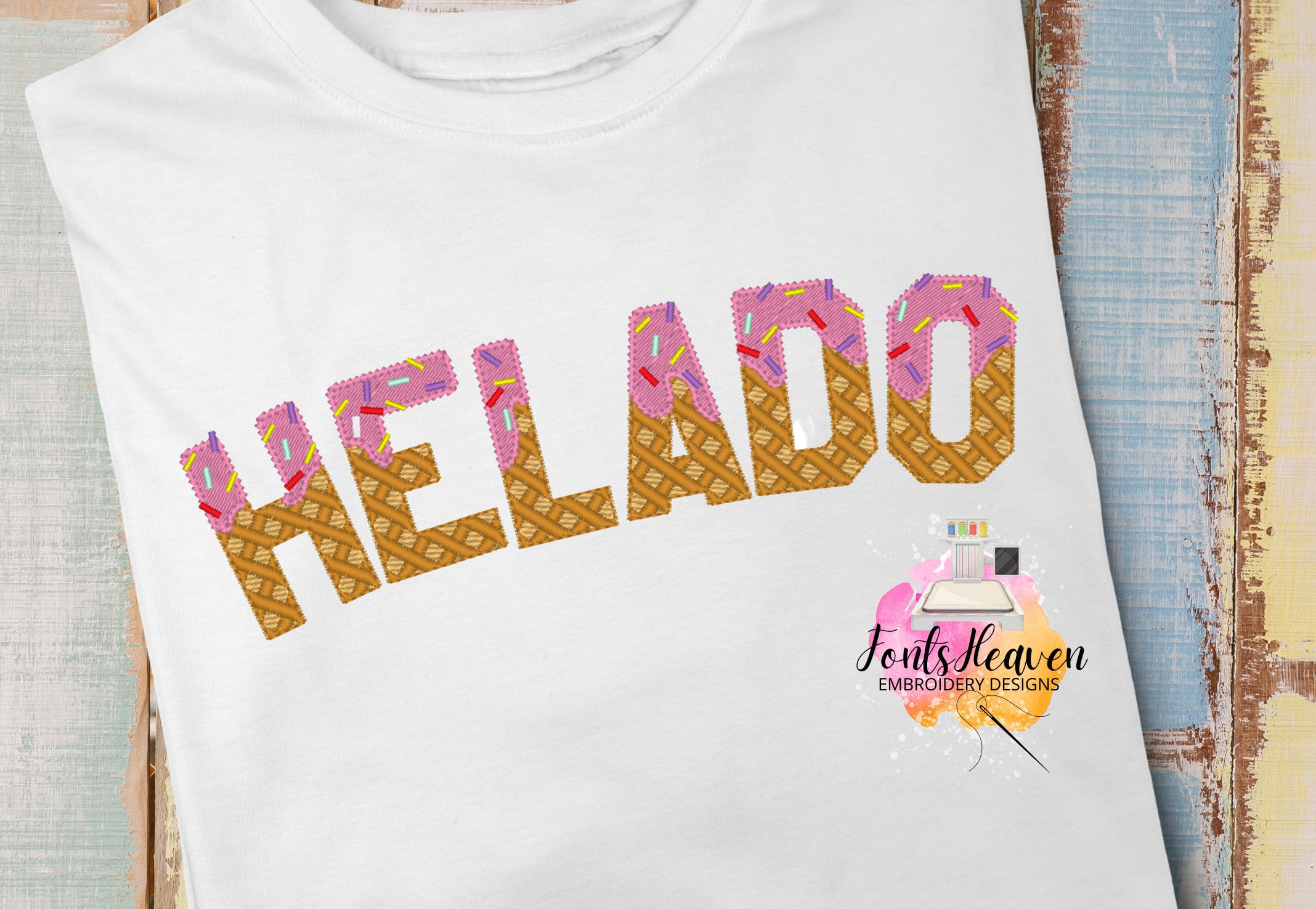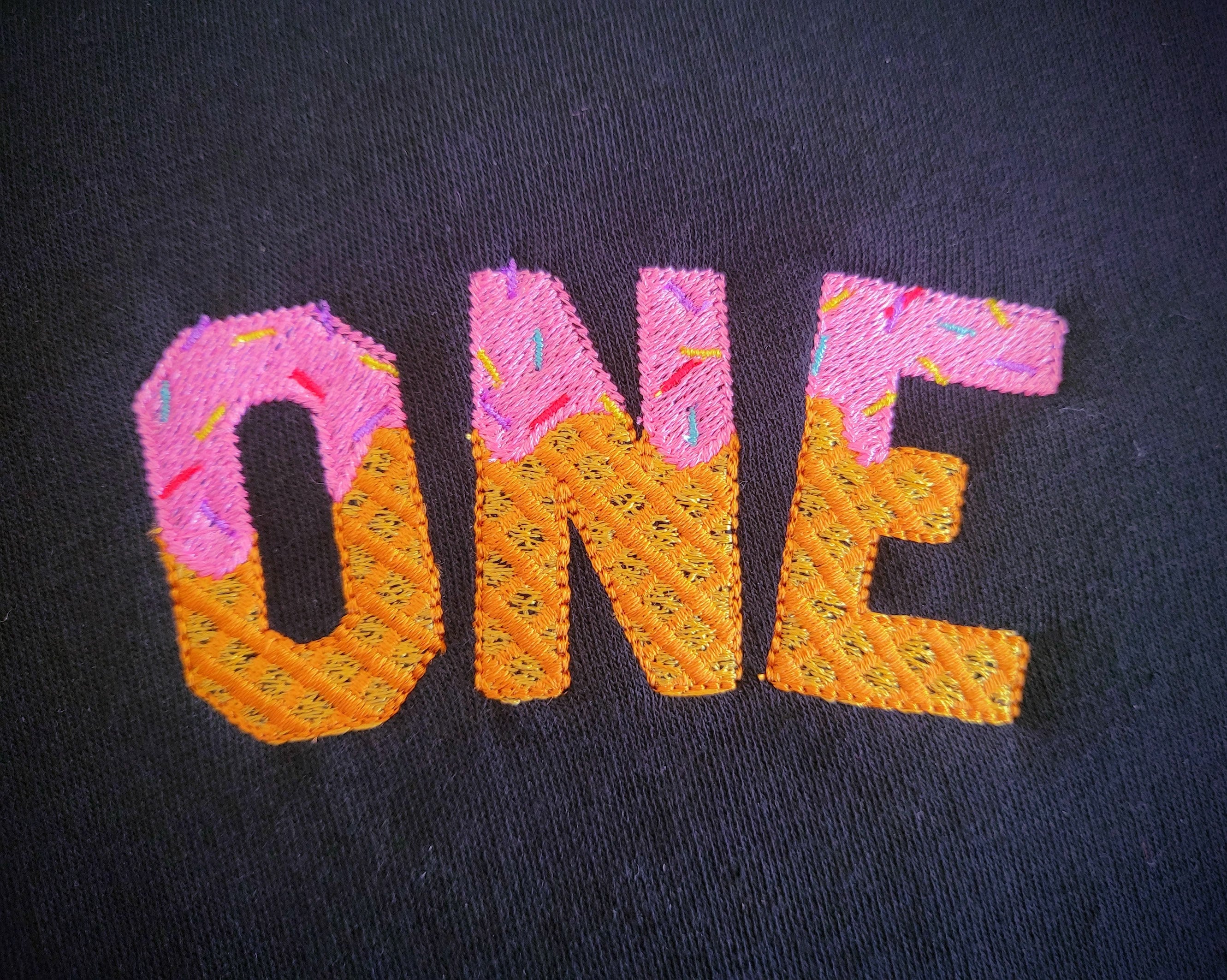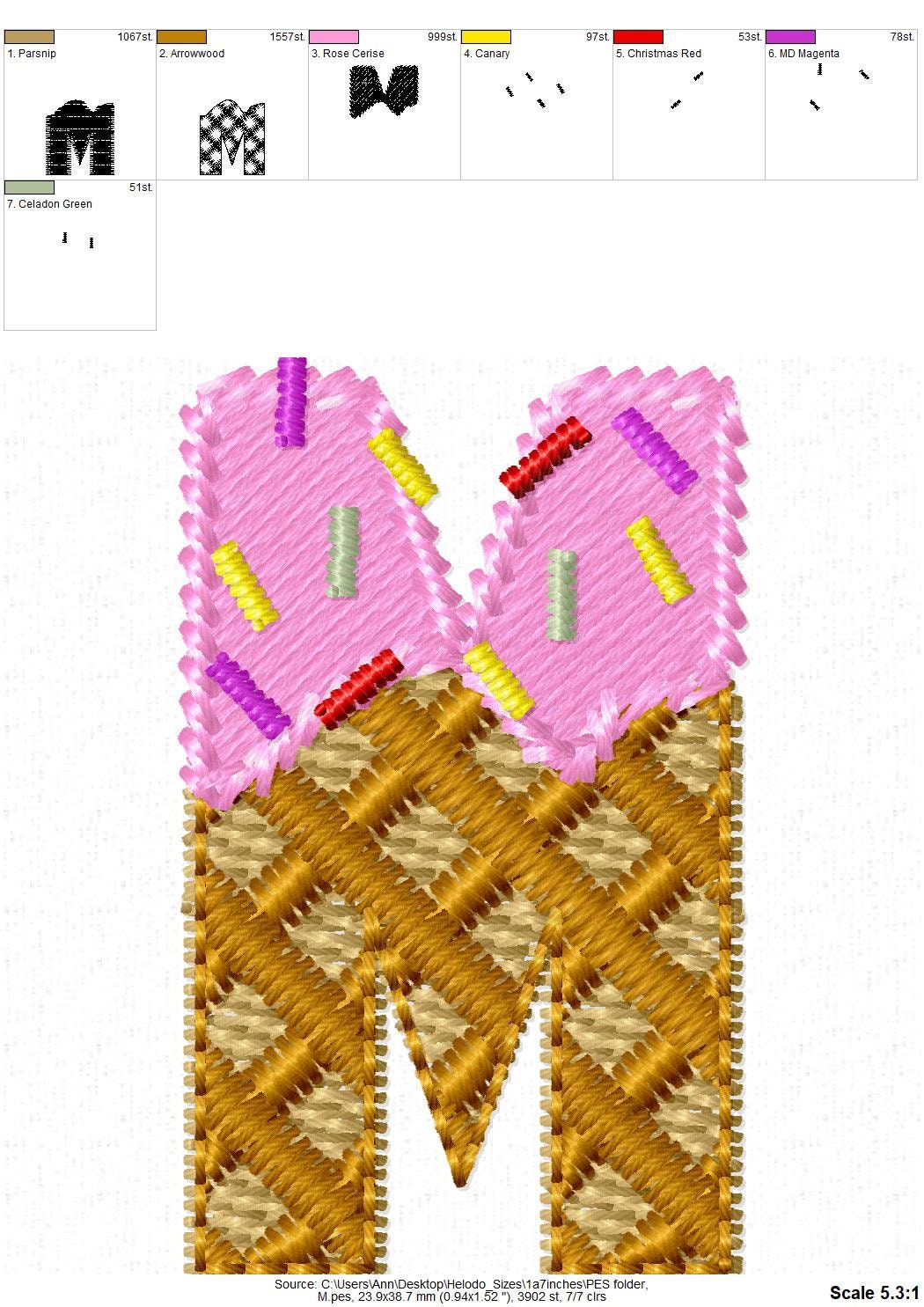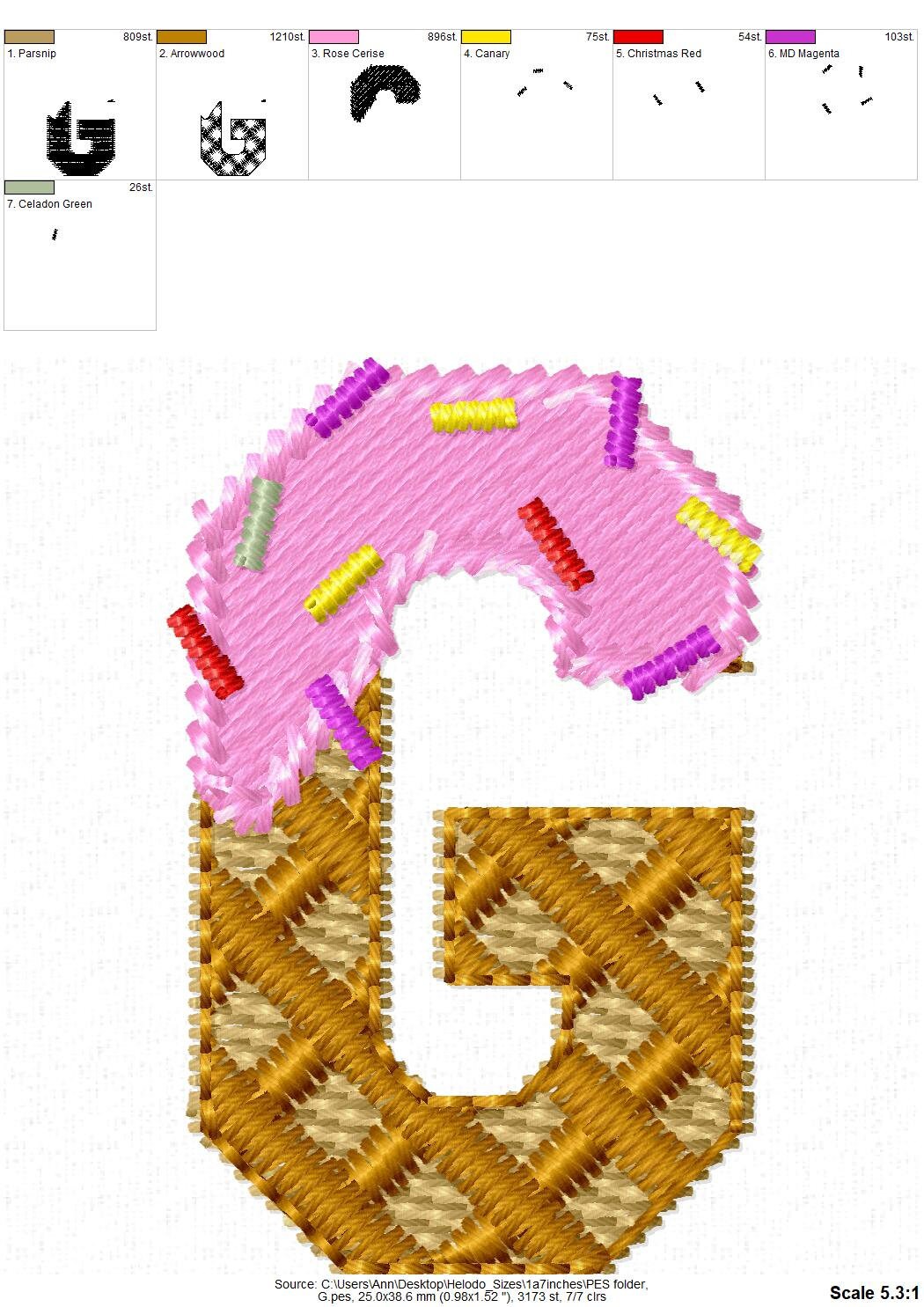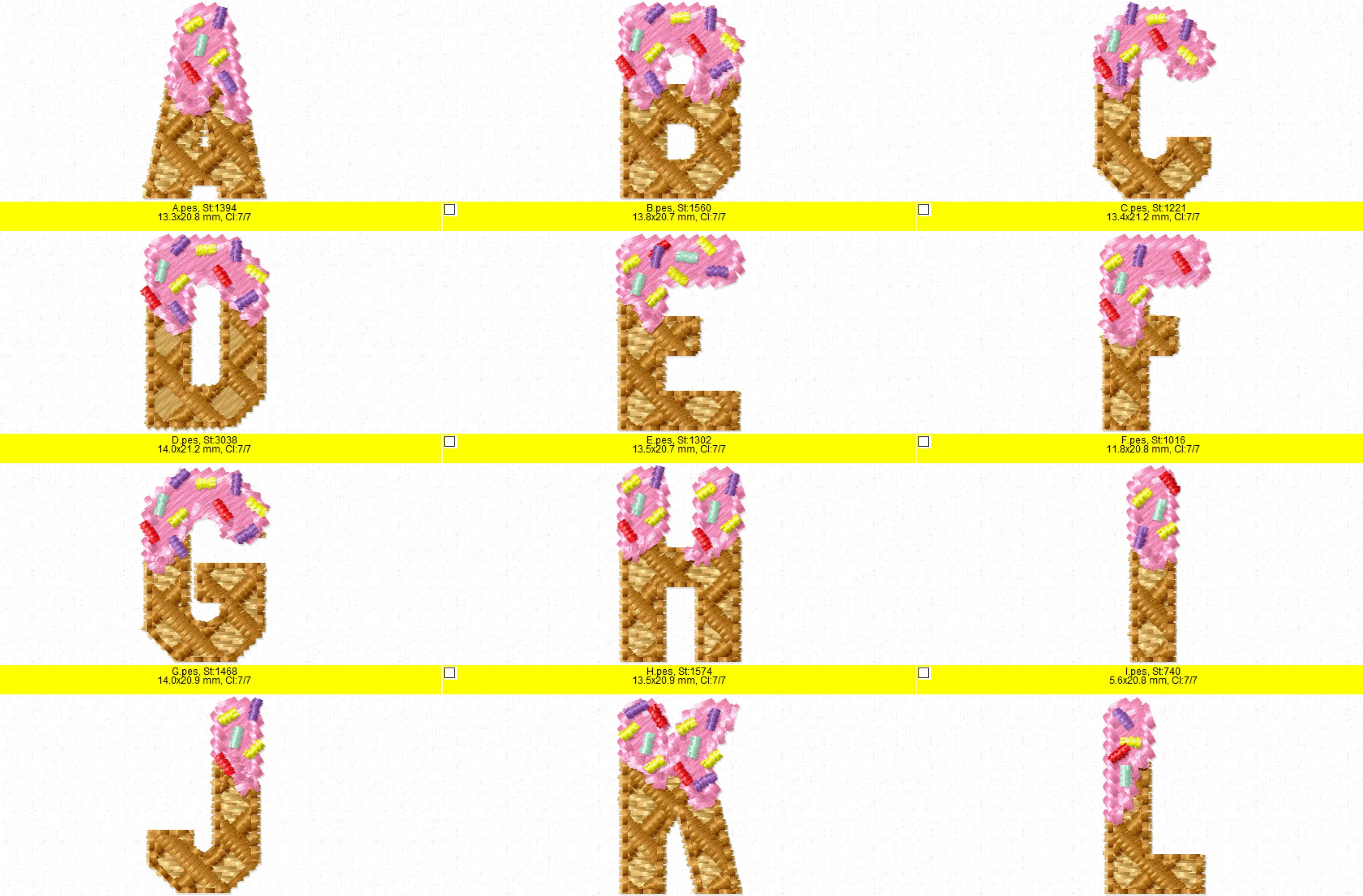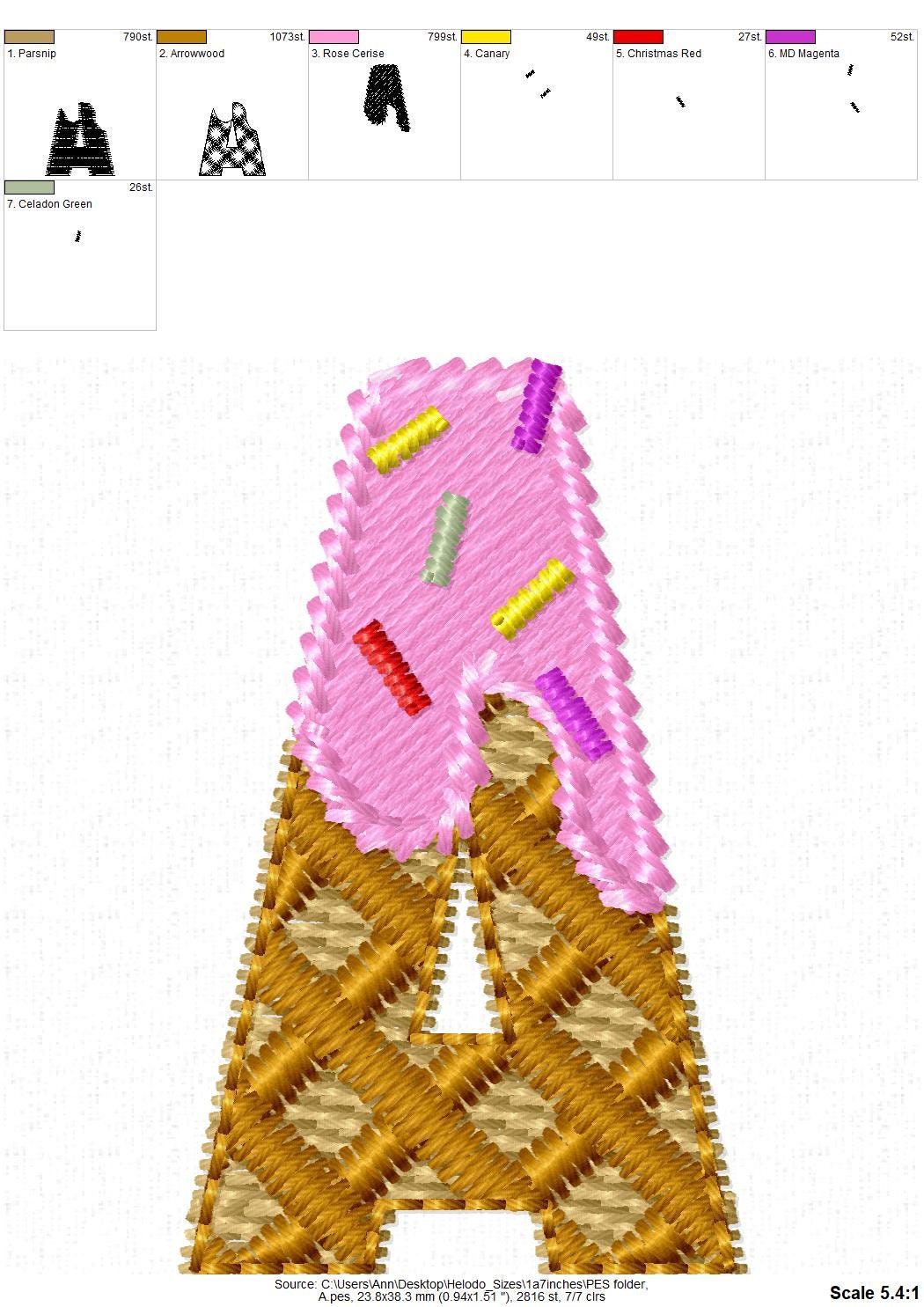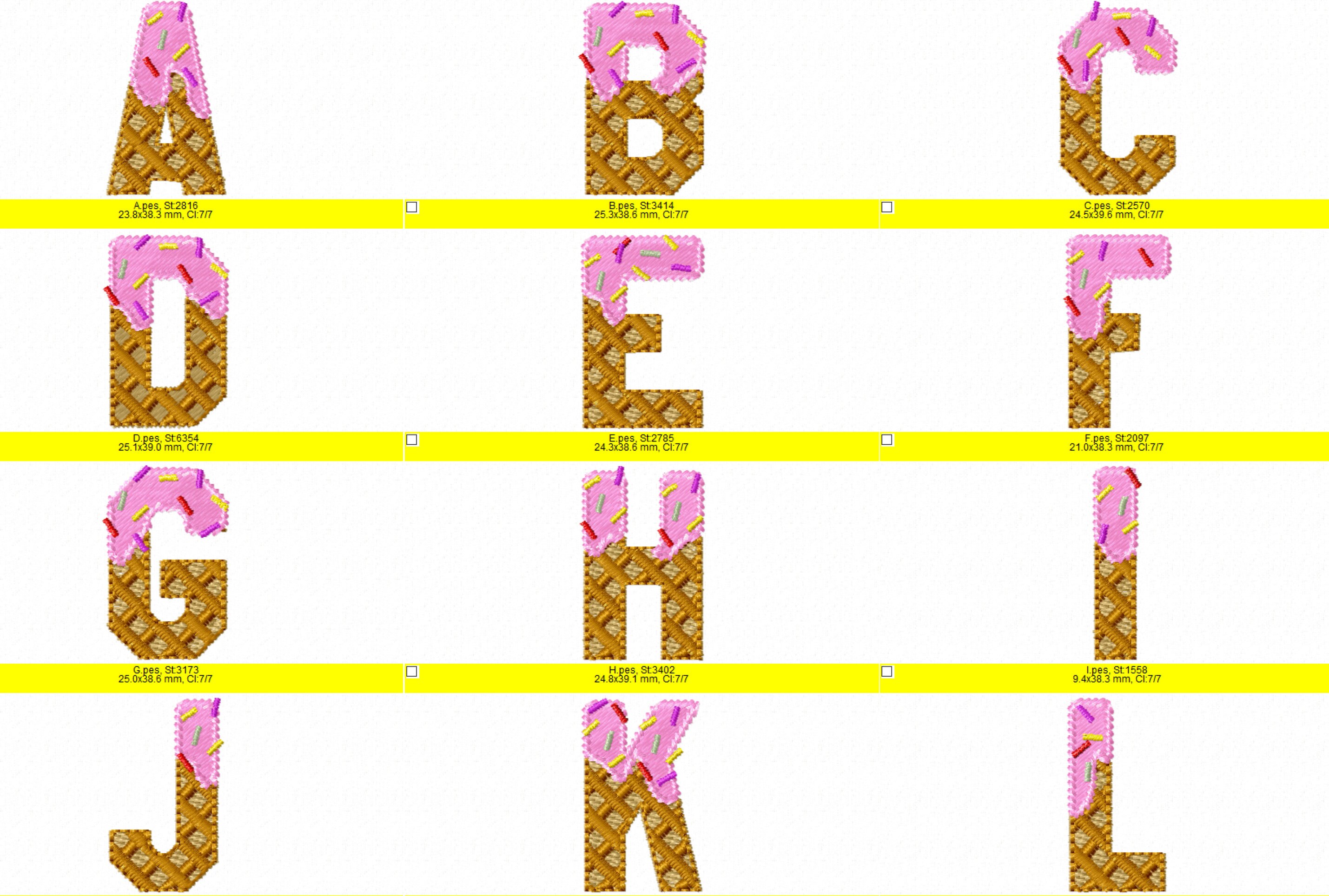
Mini Small Wee Ice-cream FONT Alphabet letters in assorted sizes from 1 inch machine embroidery designs ice-cream cone kids party birthday
Entire alphabet uppercase letters A-Z
Fill stitch design.